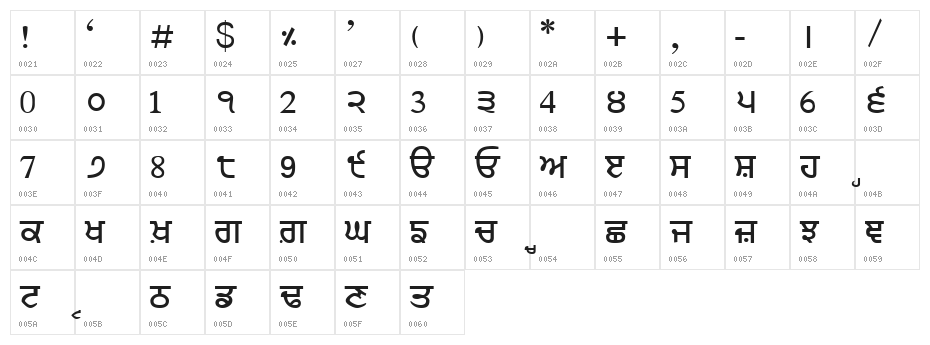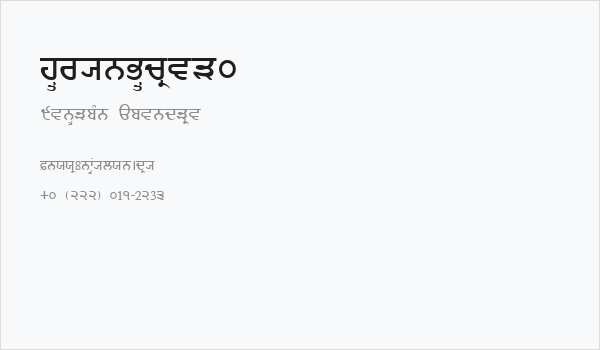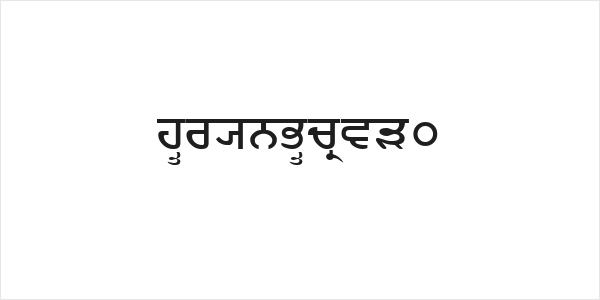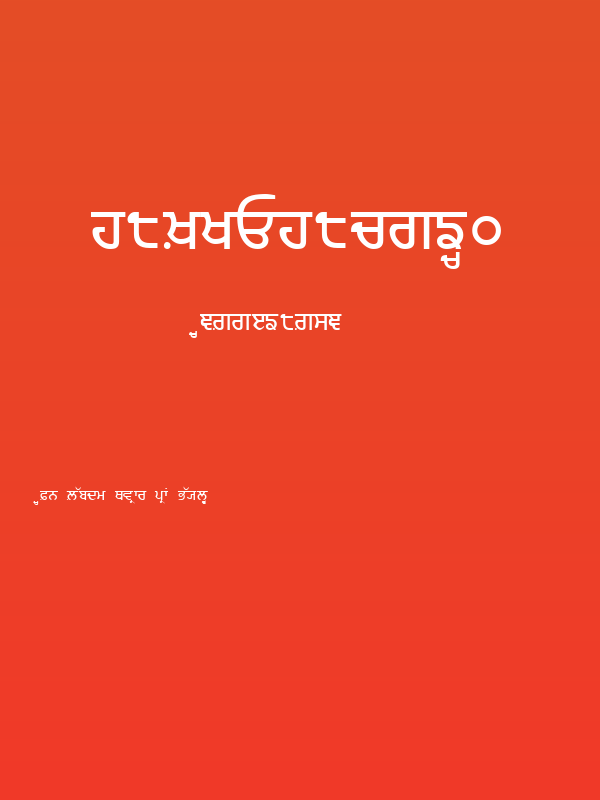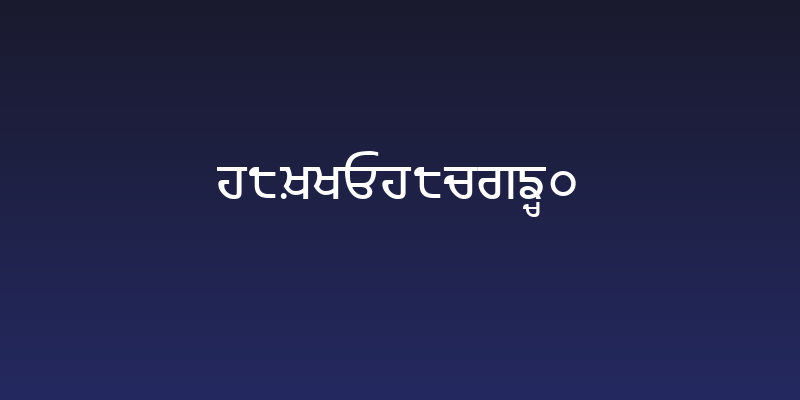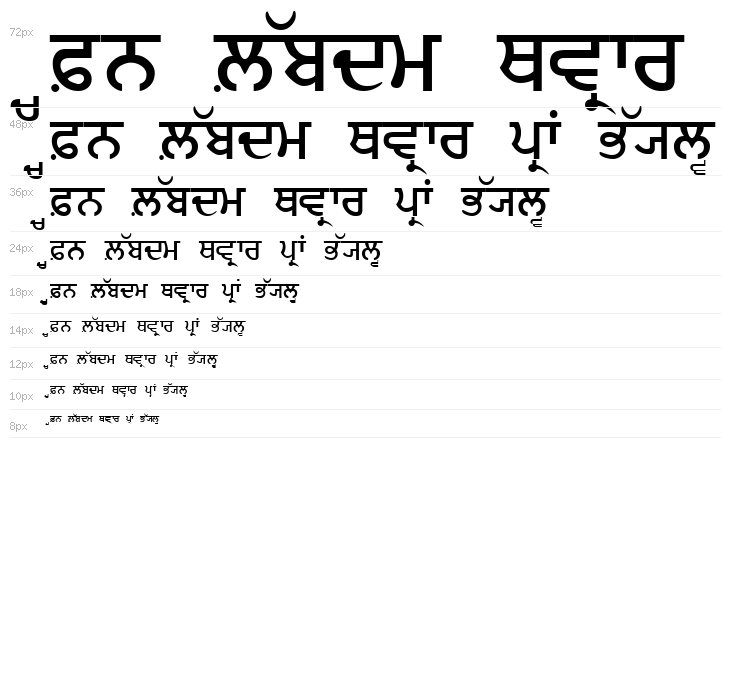
JanmejaSort1 Font
JanmejaSort1 Description
This font features a bold and modern design with a strong presence. The characters are well-defined with a consistent stroke width, giving it a clean and structured appearance. The numerals are clear and easy to read, while the special characters add a touch of uniqueness. The overall style is contemporary, making it suitable for a variety of applications. The spacing between characters is normal, ensuring readability without feeling cramped. This font's design is versatile, fitting well in both digital and print media.